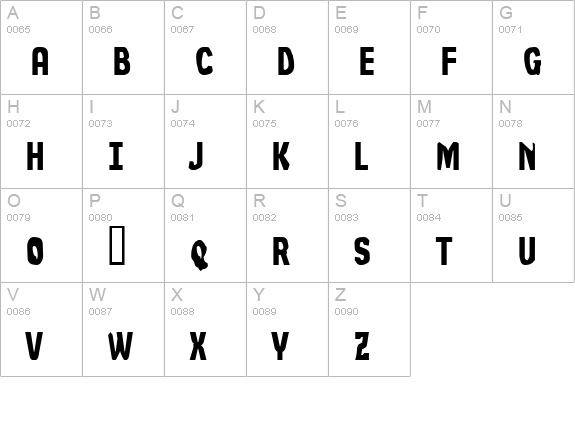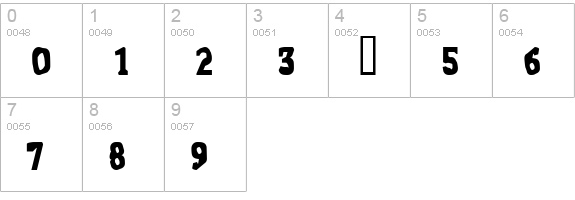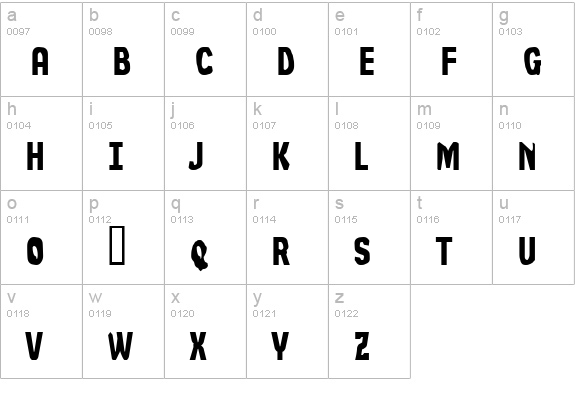
Not So Slim Jim Font Details
The Not So Slim Jim font is a bold and quirky typeface that adds a touch of personality to any design. This font features thick, chunky letters with a playful twist that make it perfect for eye-catching headlines, branding, and more. Its unique style is sure to make your projects stand out from the crowd. Best of all, the Not So Slim Jim font is completely free to download at FontsMarket.com. Whether you're a designer looking to add a fun touch to your work or just someone who appreciates creative typography, this font is a must-have addition to your collection. Don't miss out on the opportunity to get your hands on this fantastic font for free!